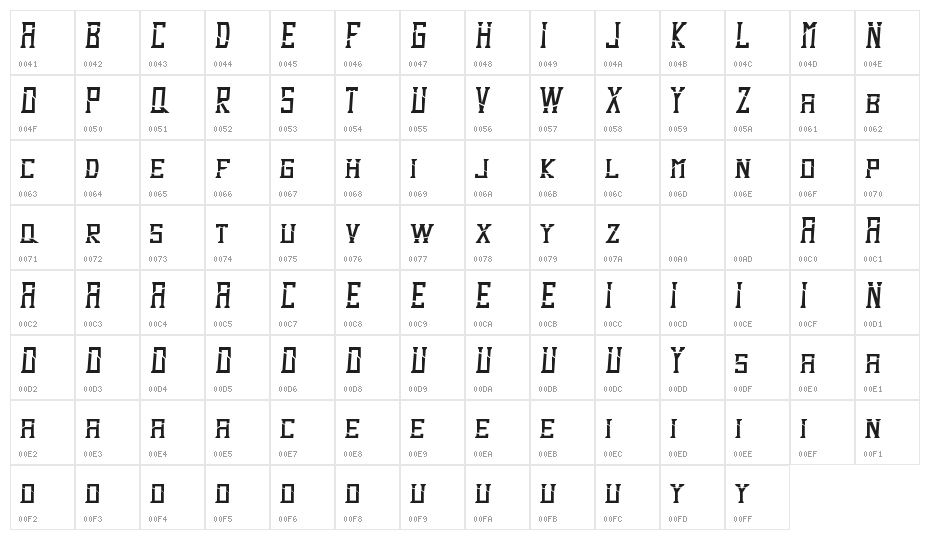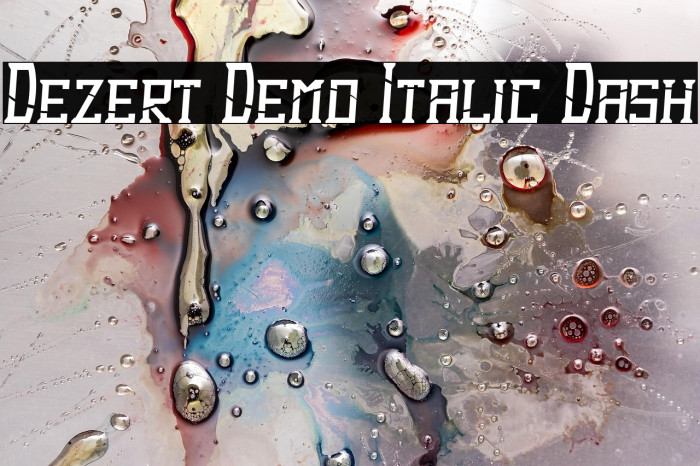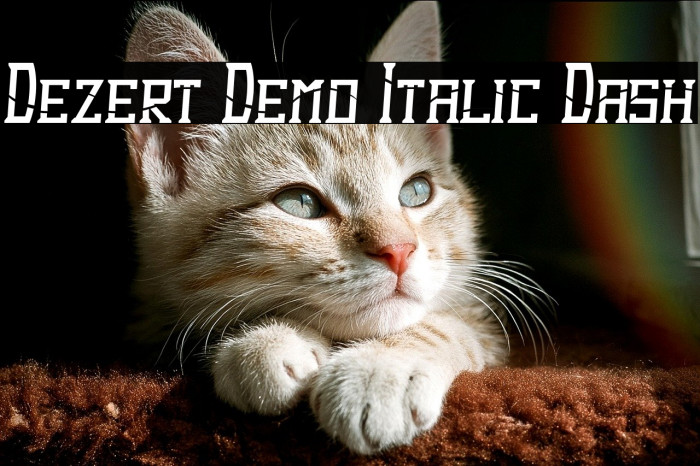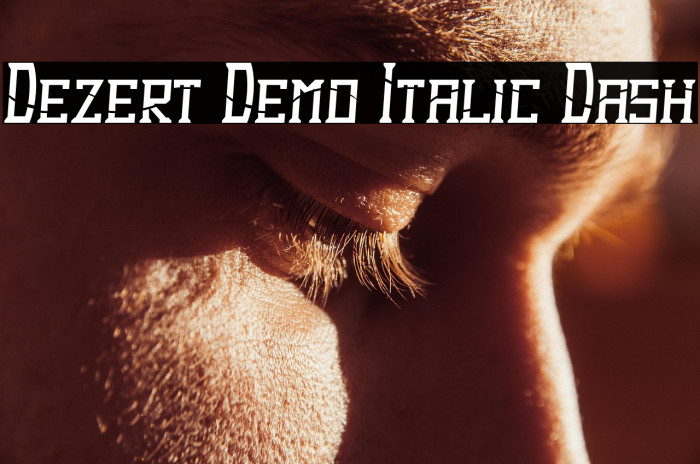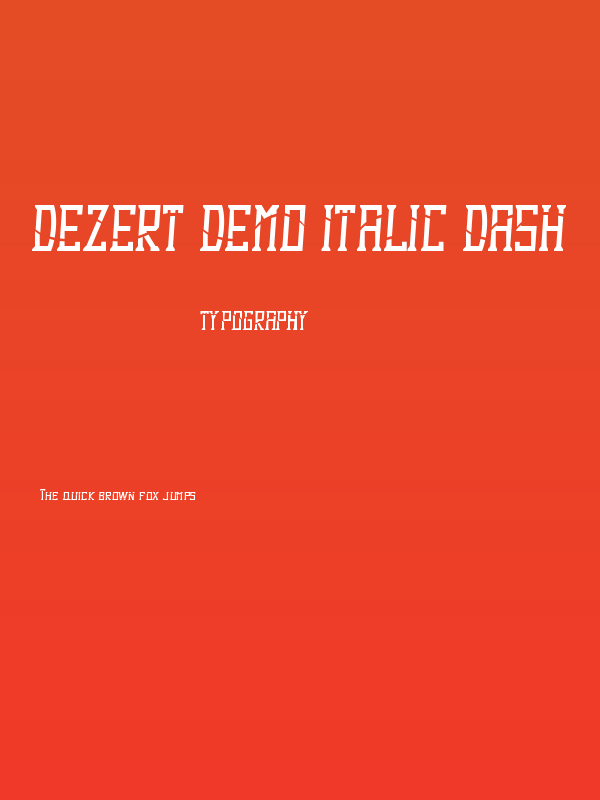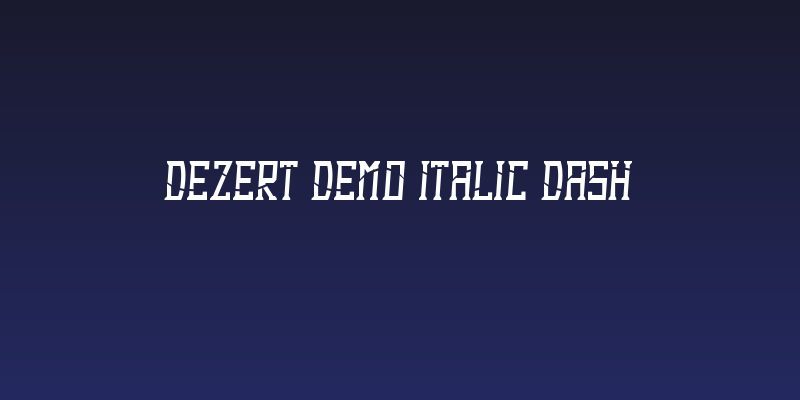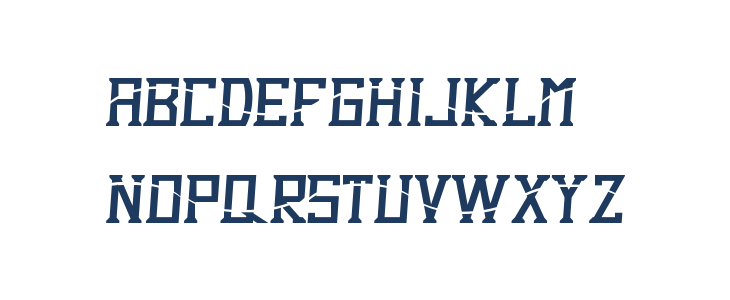
Dezert Demo Italic Dash Font
Dezert Demo Italic Dash Description
This font features a bold, angular design with a distinct italic slant, giving it a dynamic and energetic appearance. The characters are constructed with sharp edges and geometric shapes, creating a futuristic and edgy style. The consistent use of diagonal lines within each letterform adds a sense of movement and modernity. The font is highly legible, with clear distinctions between each character, making it suitable for impactful headlines and attention-grabbing designs. Its unique style is both contemporary and versatile, ideal for projects that require a strong visual statement.
| Proposed Projects | Ideal for branding, posters, album covers, and any design needing a modern, edgy look. |